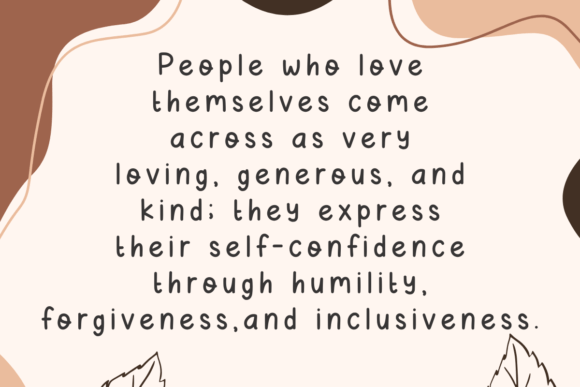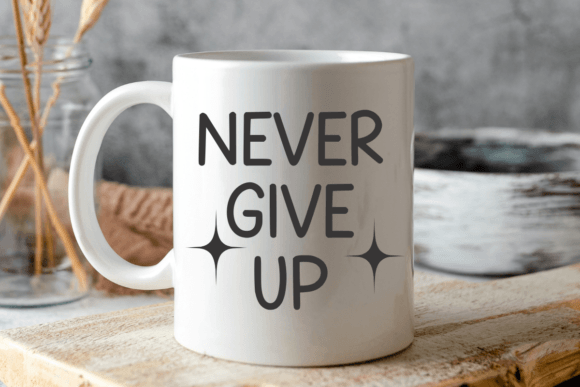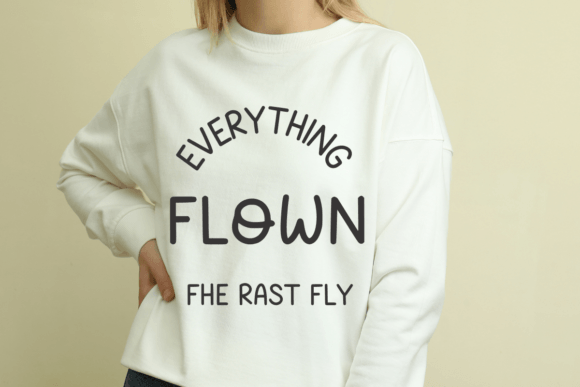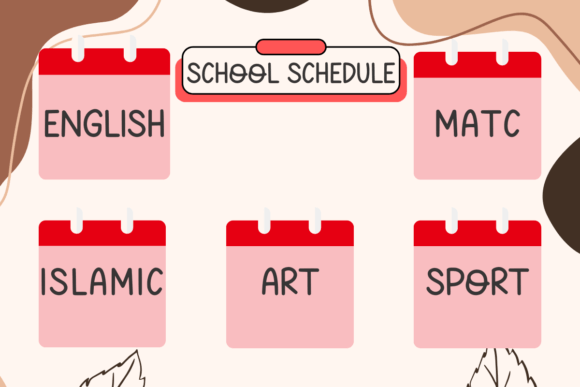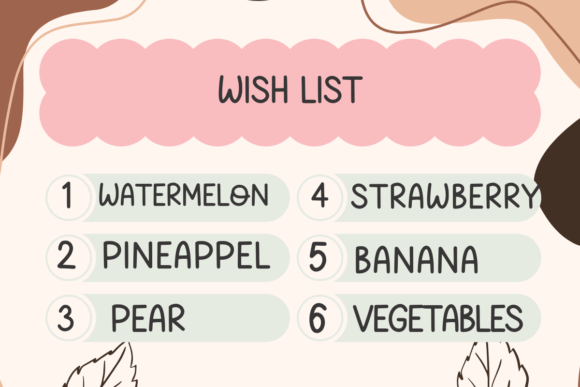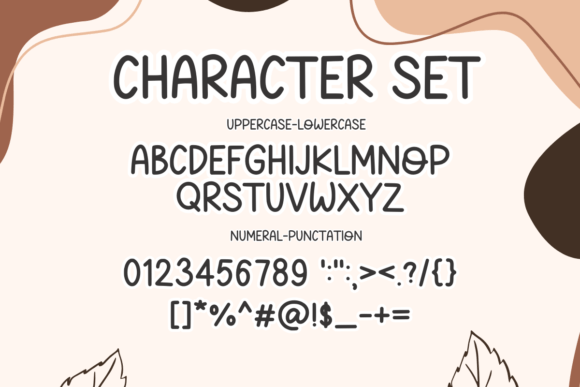
Introduction to Close Friends Font
Close Friends is a cute and fun handwritten font with a feminine touch and natural, playful strokes.
It includes uppercase, lowercase letters, and punctuation This versatile font is perfect for journals, scrapbooks, stickers, planners, quotes, womenโ€™s t-shirts, grocery lists, Canva projects, and many other creative ideas.
Key Features of Close Friends Font
Why Choose Close Friends Font?
Close Friends Font offers exceptional quality and versatility, making it a valuable addition to your design toolkit. Whether you’re creating for personal projects or commercial use, Close Friends Font delivers professional results.